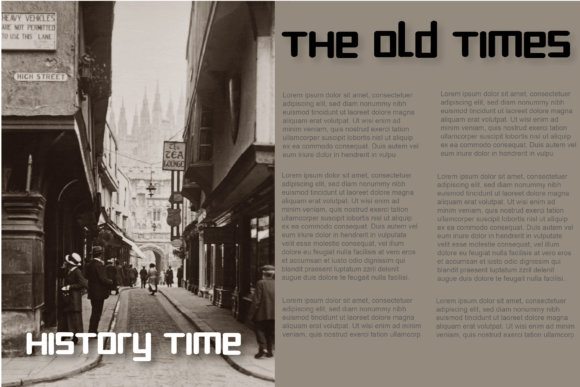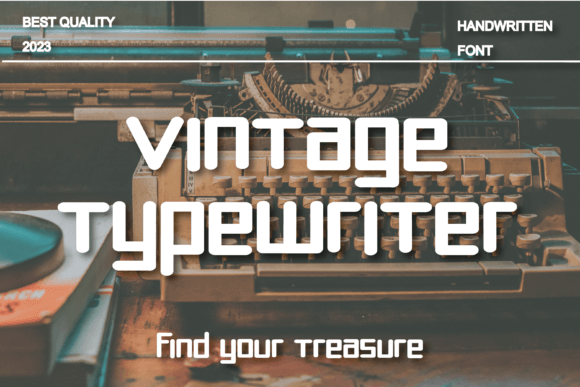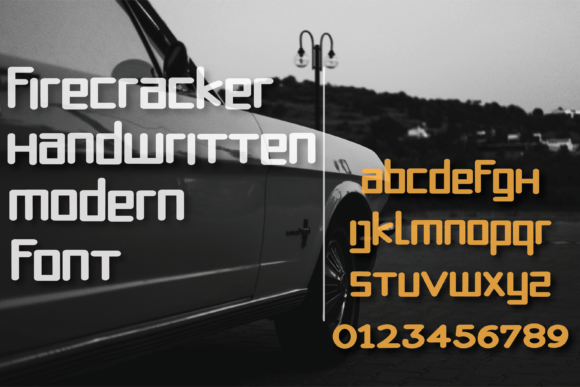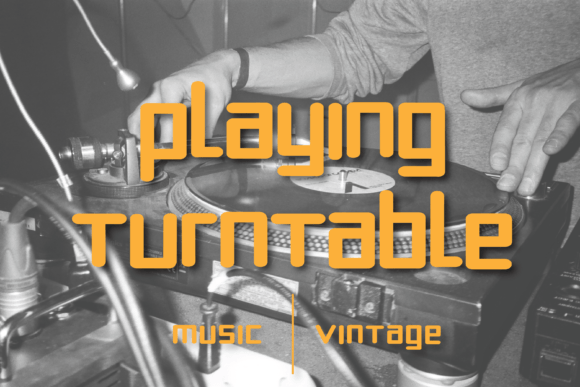
Introducing Firecracker Font: Elevate Your Designs with Luxury and Elegance
In the world of design, typography plays a crucial role in conveying the tone and aesthetic of a brand or product. A well-chosen font can elevate a design from ordinary to extraordinary, making it essential for designers and crafters to select fonts that not only resonate with their creative vision but also communicate luxury and sophistication. This is where the Firecracker Font comes into play—a very elegant typeface designed with the goal to achieve a luxurious aspect.
The Essence of Firecracker Font
Firecracker Font is crafted to bring an air of elegance and refinement to any design project. Its sophisticated and luxurious feel makes it an ideal choice for a variety of applications, ranging from high-end packaging designs to fashion branding, and from fragrance and cosmetics packaging to social media posts. The font’s design ensures that it stands out in a crowd, offering a unique blend of classic sophistication and modern appeal.
One of the key advantages of the Firecracker Font is its versatility. Whether you’re working on a luxury brand’s packaging, a fashion label’s logo, or a cosmetics company’s advertising materials, this font can be seamlessly integrated into your design. Its elegant curves and refined lines ensure that it complements a wide range of design elements, making it a go-to choice for designers looking to add a touch of luxury to their creations.
Applications of Firecracker Font
- Packaging Designs: Elevate your product packaging with a sophisticated look that captures the essence of luxury.
- Fashion Branding: Perfect for fashion labels looking to make a statement with their branding and marketing materials.
- Fragrance and Cosmetics Packaging: Add a touch of elegance to your product labels and packaging, standing out in the beauty and cosmetics industry.
- Social Media Posts: Make your social media content stand out with a luxurious and elegant font that grabs attention.
Why Choose Firecracker Font?
Choosing Firecracker Font for your design projects comes with numerous benefits. Firstly, its elegant design ensures that your creations exude luxury and sophistication. Secondly, its versatility allows you to use it across various design projects, making it a valuable addition to your font collection. Lastly, using a unique and high-quality font like Firecracker can significantly enhance your brand’s visual identity, setting you apart from competitors.
Tips for Using Firecracker Font
To make the most out of Firecracker Font, consider the following tips:
- Pair it with Simplicity: Let the elegance of Firecracker Font be the focal point by pairing it with simple and clean design elements.
- Experiment with Colors: Enhance the luxurious feel of the font by experimenting with premium color palettes.
- Use it Sparingly: For maximum impact, use Firecracker Font sparingly, making it a highlight in your design.
Firecracker Font is more than just a typeface; it’s a design statement that can elevate your creations to new heights of luxury and elegance. Whether you’re a designer looking to enhance your brand’s visual identity or a crafter aiming to add a touch of sophistication to your projects, Firecracker Font is an excellent choice. Use it with confidence in your creations, and you’ll undoubtedly see amazing results.
With its luxurious design, versatility, and the ability to make a lasting impression, Firecracker Font is set to become an indispensable part of your design toolkit. So, why wait? Explore the possibilities that Firecracker Font offers and transform your designs with its elegant and refined aesthetic.